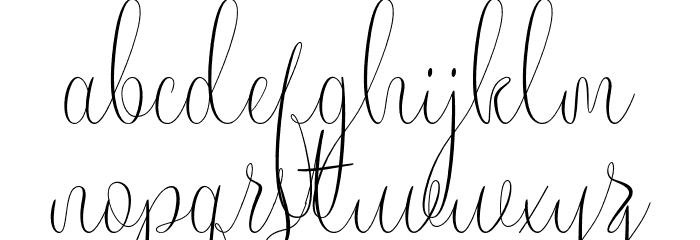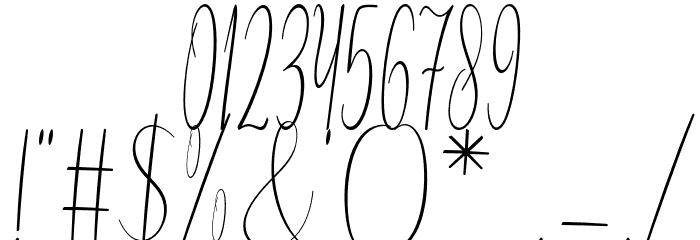
Yolanda-artdesign Font
This font features an elegant and flowing script style, characterized by its delicate and intricate curves. The uppercase letters are adorned with graceful loops and swirls, giving them a sophisticated and ornamental appearance. The lowercase letters maintain a consistent fluidity, with elongated ascenders and descenders that enhance the font's decorative nature. The numerals are slender and maintain the same elegant style, while the special characters are designed to complement the overall aesthetic. This font exudes a sense of refinement and artistic flair, making it suitable for projects that require a touch of elegance and creativity.
An elegant and flowing script font with intricate curves and ornamental details.
- Proposed Projects: Ideal for wedding invitations, elegant branding, artistic posters, and decorative signage.
- Use Case: Logos, Invitations, Artistic projects